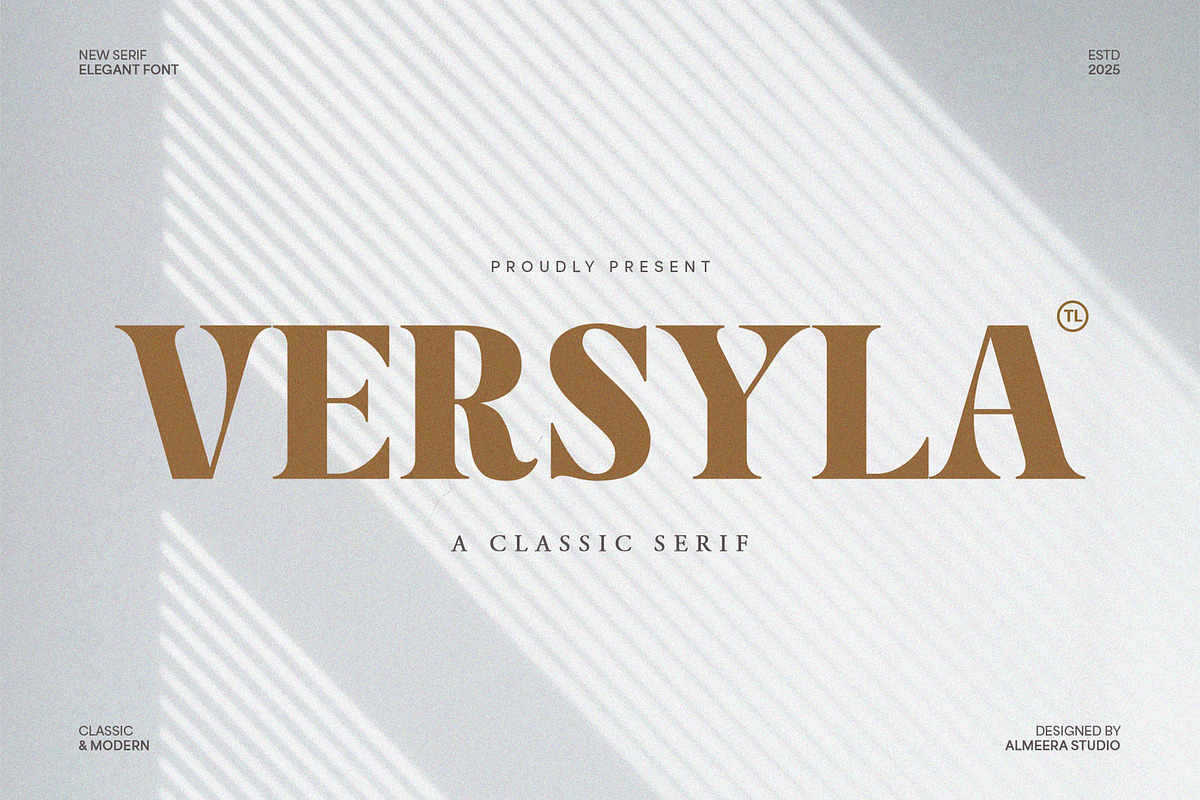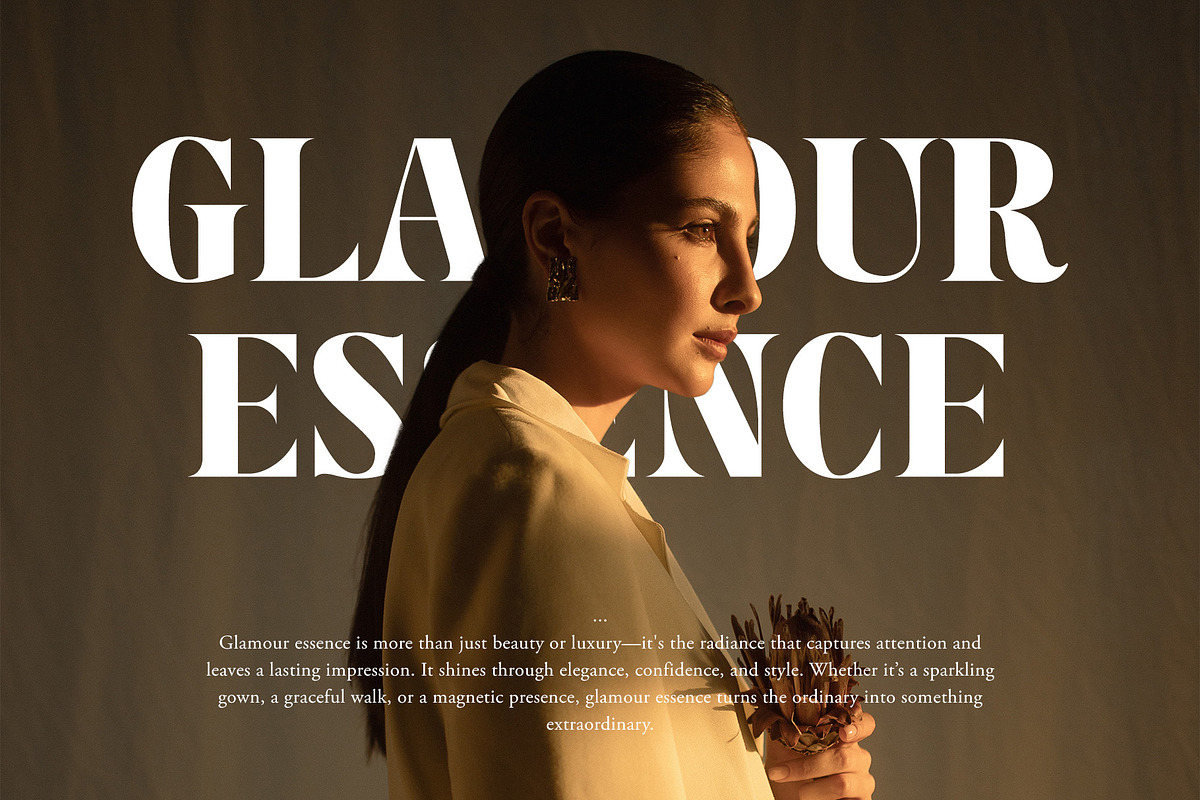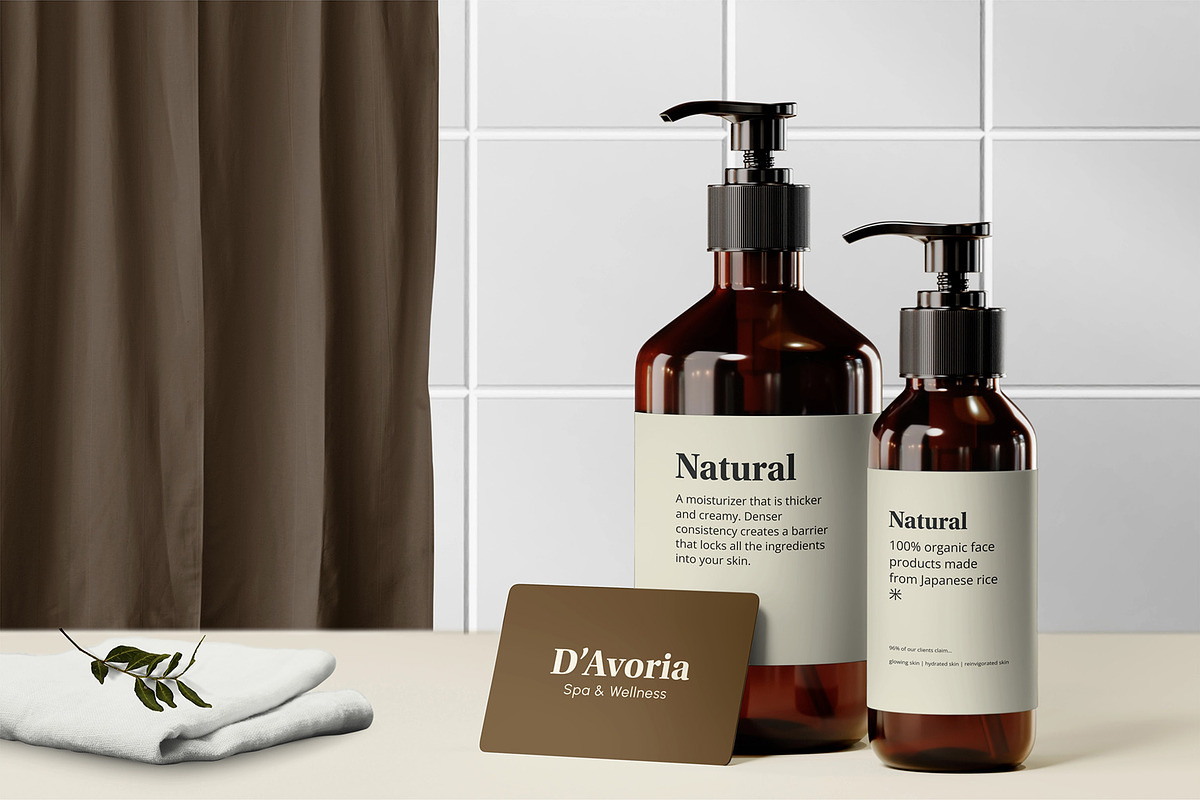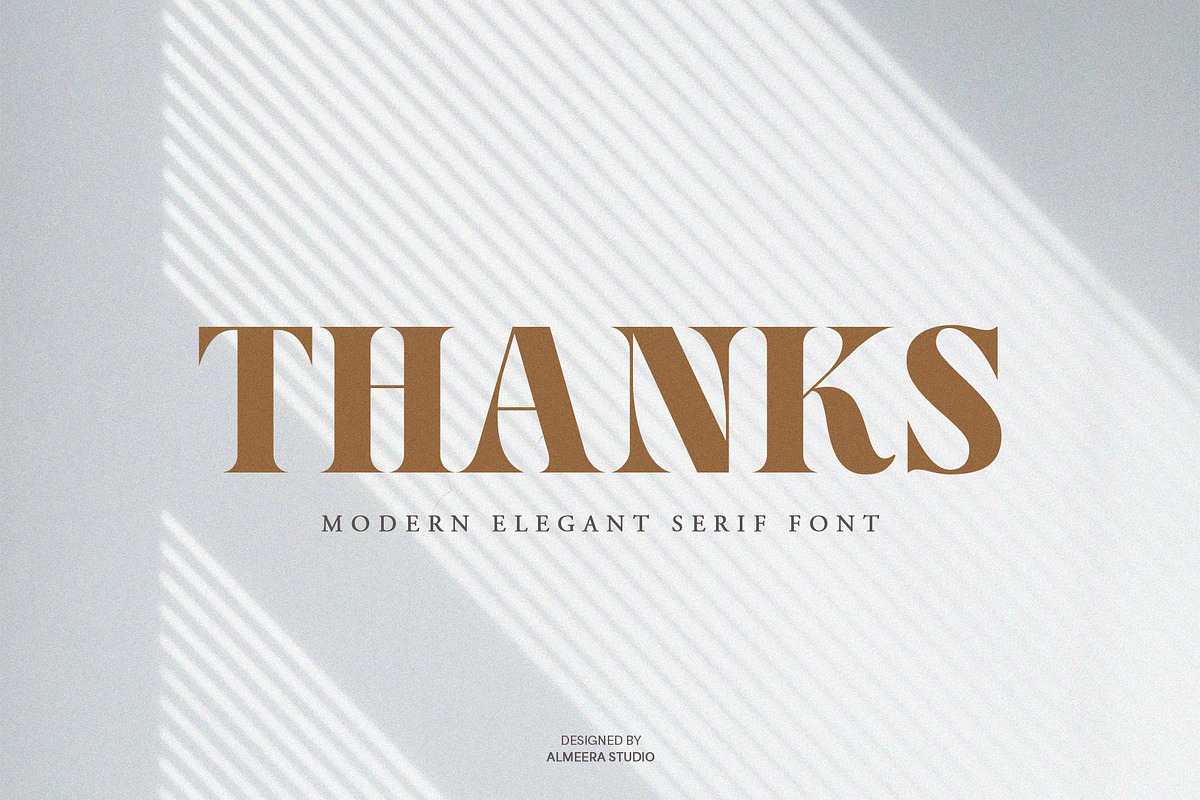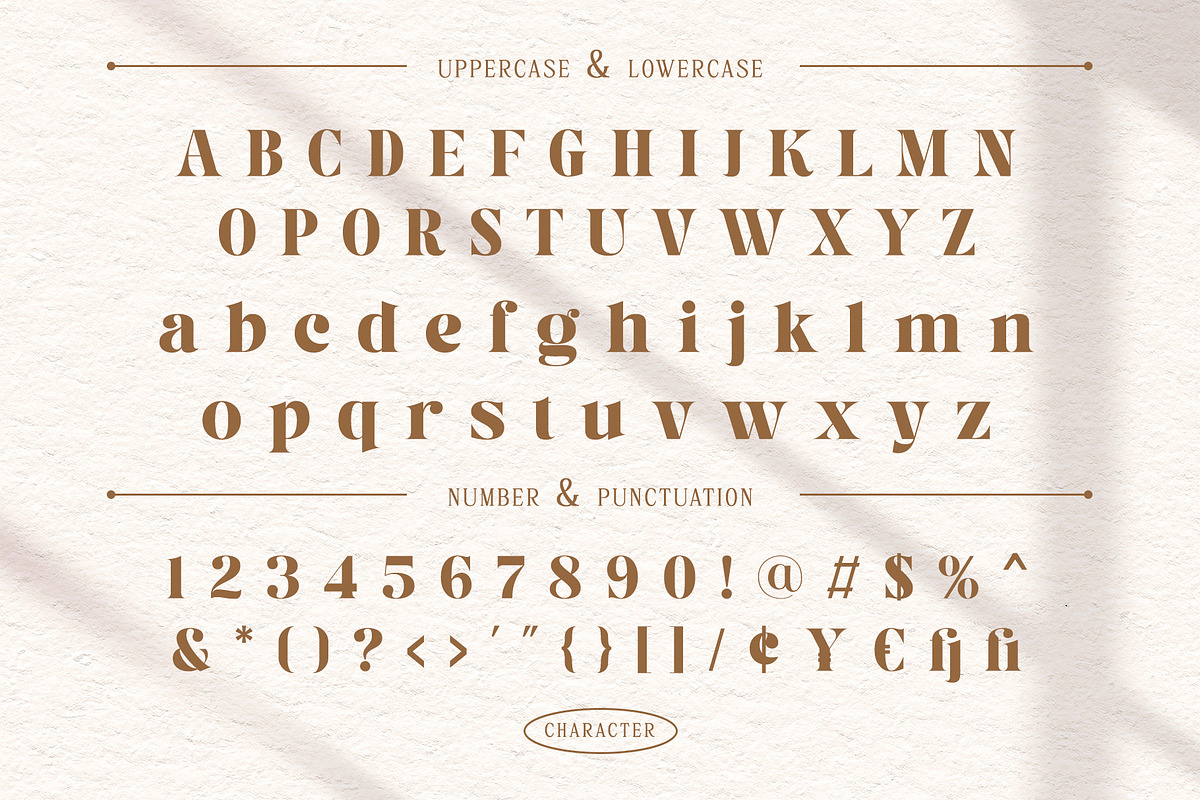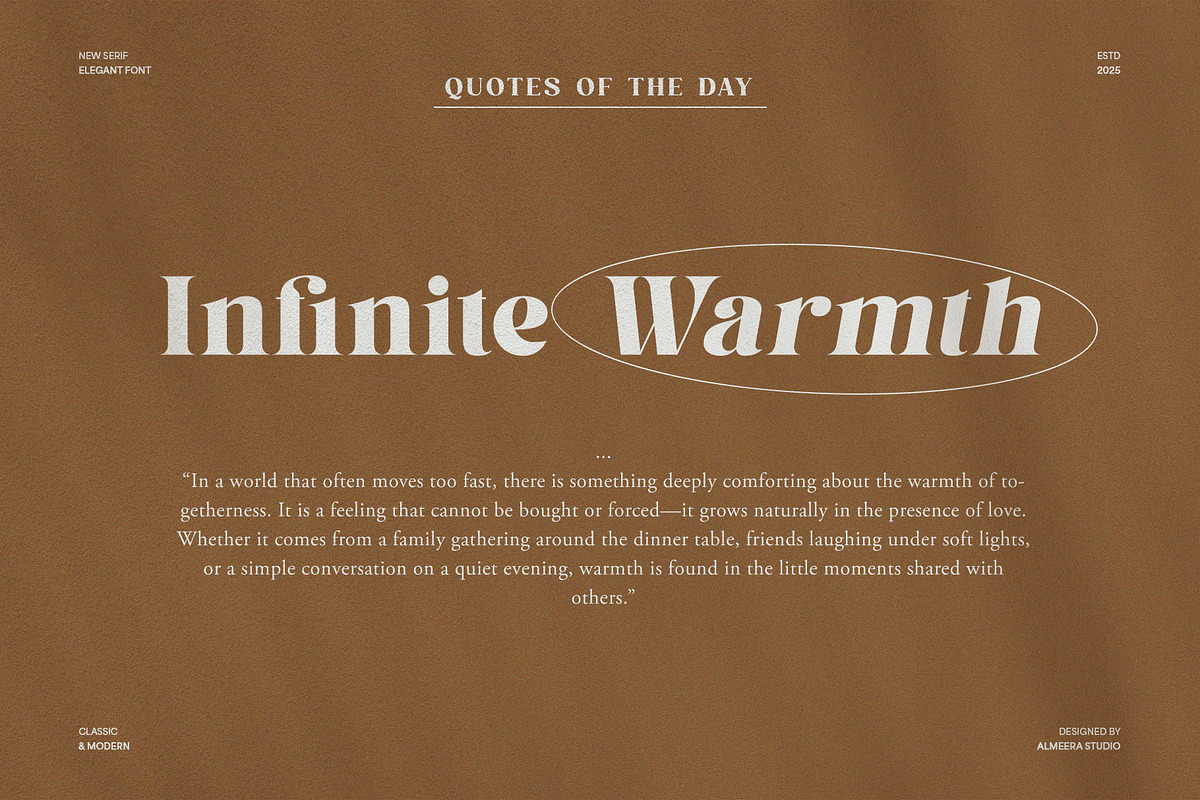
Versyla - Classic & Modern Serif
Versyla - Classic & Modern Serif Font
Discover Versyla, a stunning new elegant serif font that seamlessly blends classic sophistication with a modern aesthetic. Perfect for branding, editorial design, luxury packaging, and high-impact headlines, Versyla is meticulously crafted to offer both timeless elegance and exceptional readability. Its refined letterforms and balanced proportions make it a highly versatile choice for a wide range of creative projects, from corporate branding to fashion editorials. Elevate your typography with Versyla, a font that promises to bring a touch of class and distinction to your designs. Ideal for designers seeking a premium serif that is both impactful and gracefully understated.